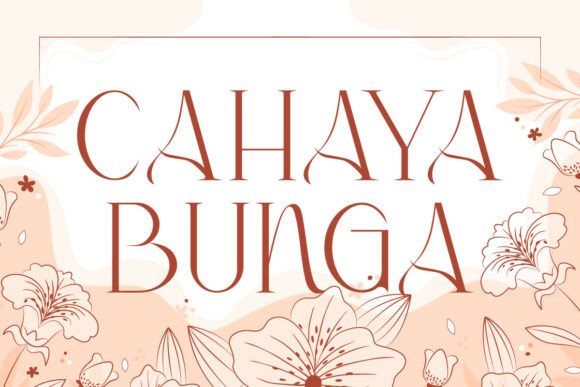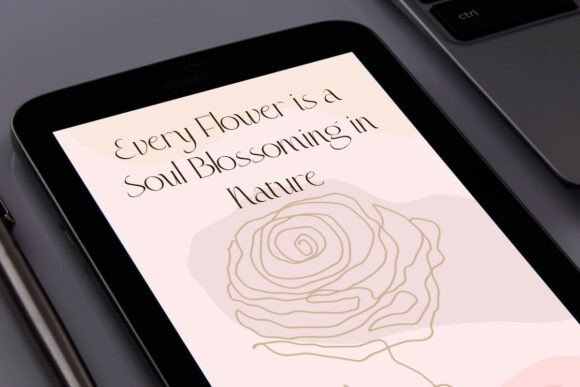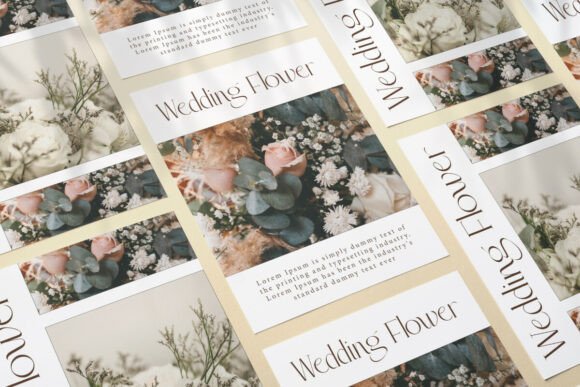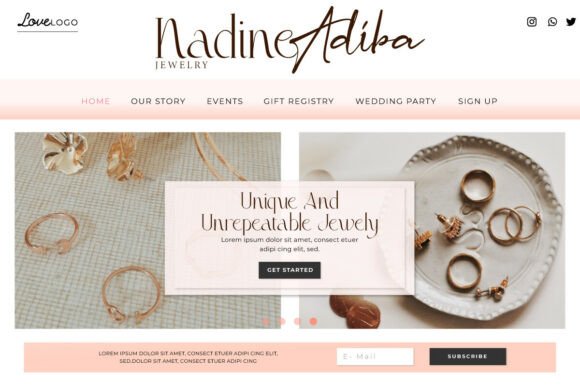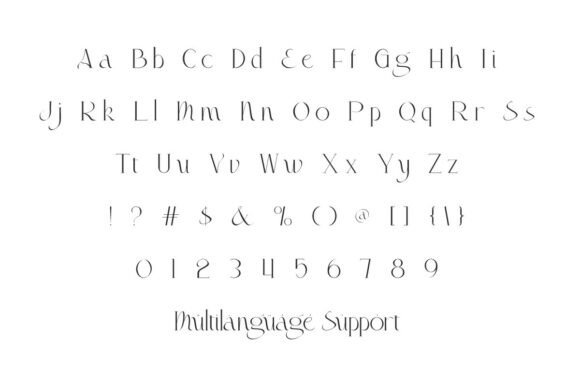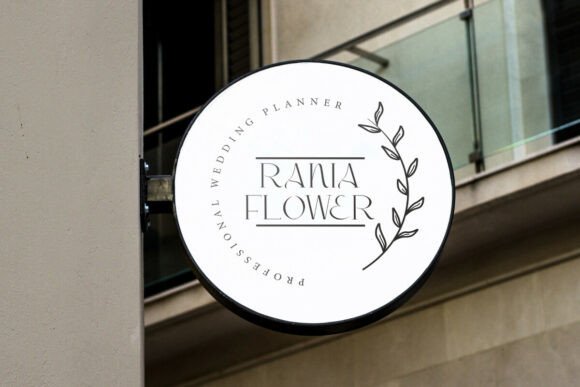
Cahaya Bunga Font: Elevate Your Designs with Elegance and Sophistication
In the world of typography, a font can make or break a design. For designers and crafters seeking to add a touch of luxury and sophistication to their work, Cahaya Bunga Font is an exceptional choice. This refined serif font boasts artistic curves and expressive letterforms, making it perfect for high-end branding, editorial designs, and luxury packaging.
The Essence of Cahaya Bunga
Cahaya Bunga is more than just a font – it’s an experience. Its unique mix of calligraphic flair and classical elegance sets it apart from other serif fonts. Each character is carefully crafted to radiate sophistication while maintaining a graceful, organic feel. This font is ideal for designers who want to add a touch of refinement and poise to their work.
Key Features of Cahaya Bunga
- Refined Serif Font: Cahaya Bunga’s serif design adds a touch of classic elegance to any project.
- Artistic Curves: The font’s artistic curves and expressive letterforms make it perfect for high-end branding and editorial designs.
- Calligraphic Flair: Cahaya Bunga’s calligraphic elements add a touch of sophistication and luxury to any design.
- Classical Elegance: The font’s classical elegance makes it suitable for a wide range of design applications, from luxury packaging to editorial designs.
Perfect for High-End Designs
Cahaya Bunga Font is perfect for designers who want to create high-end designs that exude luxury and sophistication. Its unique blend of calligraphic flair and classical elegance makes it ideal for:
- Luxury Branding: Use Cahaya Bunga to create stunning logos, business cards, and letterheads that reflect your brand’s luxury image.
- Editorial Designs: Add a touch of elegance to your editorial designs, such as magazines, newspapers, and books.
- Luxury Packaging: Use Cahaya Bunga to create stunning packaging designs that reflect your brand’s high-end image.
Tips for Using Cahaya Bunga
To get the most out of Cahaya Bunga Font, here are some tips for using it in your designs:
- Pair it with a sans-serif font: Pair Cahaya Bunga with a sans-serif font to create a stunning contrast that adds visual interest to your design.
- Use it for headlines and titles: Cahaya Bunga is perfect for headlines and titles, where its elegant and sophisticated design can shine.
- Experiment with font sizes and colors: Don’t be afraid to experiment with different font sizes and colors to create a unique look that reflects your brand’s personality.
Cahaya Bunga Font is a refined serif font that offers a unique blend of calligraphic flair and classical elegance. Its artistic curves and expressive letterforms make it perfect for high-end branding, editorial designs, and luxury packaging. With its sophisticated and elegant design, Cahaya Bunga is sure to elevate your designs to the next level. Whether you’re a designer or crafter, this font is an exceptional choice for anyone seeking to add a touch of luxury and sophistication to their work.